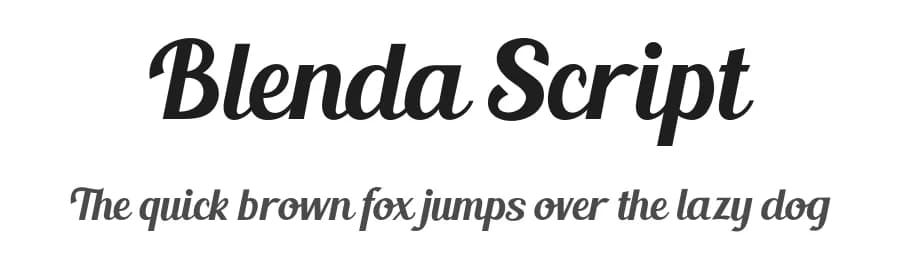
About Blenda Script Font
Blenda Script is a script & handwritten font designed by Seniors Studio. It includes 285 glyphs, a regular weight, OTF (CFF) format, and 131 languages. Blenda Script is free to download; check the license details on this page before commercial use. Script & handwritten fonts like Blenda Script work best for wedding invitations, greeting cards, signatures, and elegant branding.
Blenda Script Font is a script font that shines as a display or heading face. Pair it with a clean sans-serif or serif font for body text β the contrast creates a clear hierarchy while the two styles stay balanced and easy to read.
Blenda Script Font